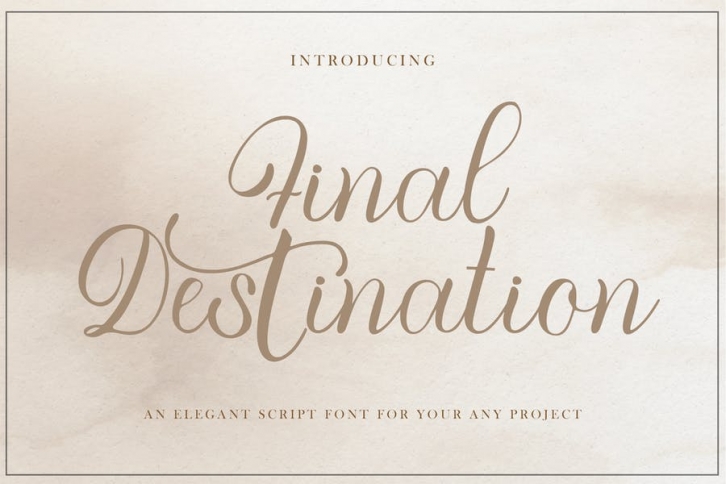
Final Destination Modern Script
Final Destination is a delicate, elegant, and flowing handwritten font. is a stylish calligraphy font that features a varying baseline, smooth line, modern, and with a depth of love. For those of you who need a touch of love and modernity for your designs or branding, it can be used for various purposes such as headings, weddings, invitations, signatures, logos, branding, letterhead, signage, label, news, posters, badges, etc.
It has beautiful and well-balanced characters, and as a result, it matches a wide pool of designs. Cardigan Christmas features a varying baseline, smooth lines, gorgeous glyphs, and stunning alternates. Add it to your most creative ideas and notice how it makes them come alive!